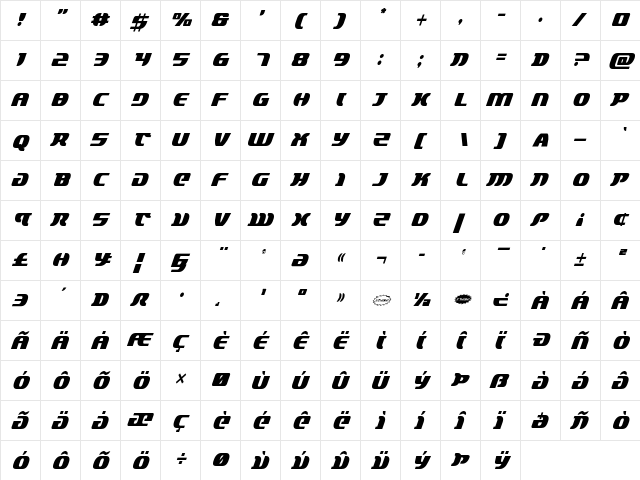
Lord of the Sith Condensed Italic Font Preview
Design Context for Lord of the Sith Condensed Italic Typeface
Lord of the Sith Condensed Italic is a composed and adaptable typeface that performs quietly and consistently across a wide range of design contexts. Its italic angle brings a sense of urgency and motion to the letterforms. The condensed width makes it efficient for tight spaces without sacrificing legibility.
Pro Tip: Use Lord of the Sith Condensed Italic for emphasis, pull quotes, and subheadings where its slanted energy can add rhythm to the layout.